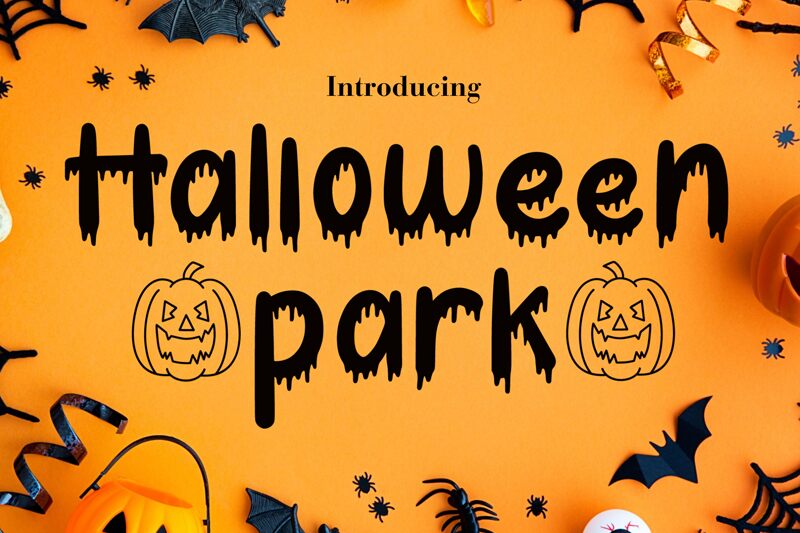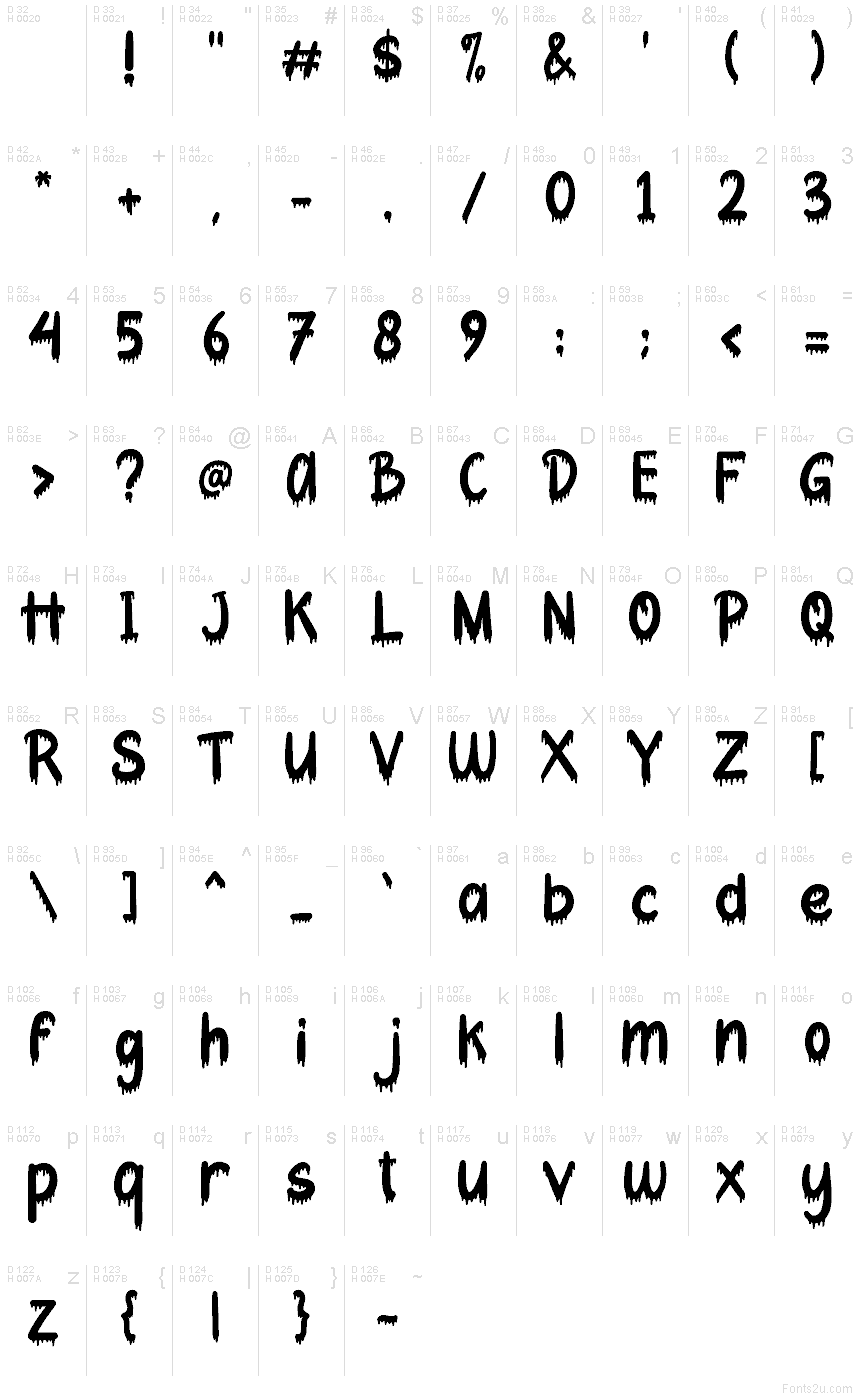
Halloween Park
Halloween Park font by AEN Creative Studio is a free Halloween display font. Its inky drips, squishy edges, and cheeky jack‑o’‑lantern cutouts turn every word into a mini haunted scene. The rhythm feels hand‑painted—playful with a mischievous bite—so headlines grab attention like a glow‑stick in the dark.
Using Halloween Park, your seasonal pieces snap to life: party invitations, haunted maze posters, candy bag labels, stickers, social promos, YouTube thumbnails, and themed menus. This free font shines at large sizes; give it a touch of extra line spacing so the drips breathe. Pair with a clean geometric sans for details—the contrast keeps the spooky centerpiece readable and sharp.